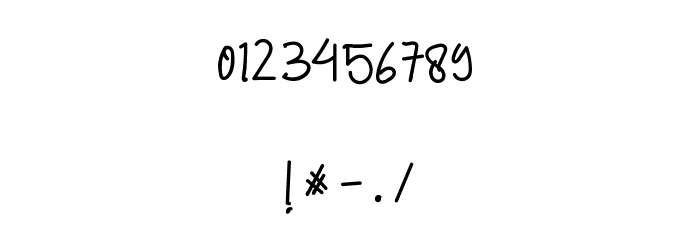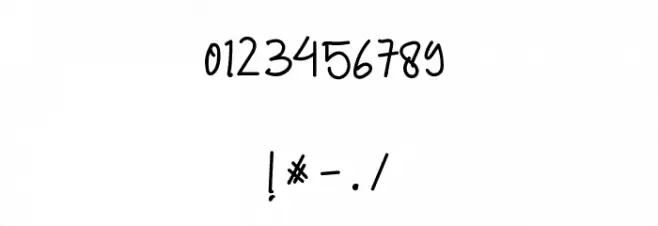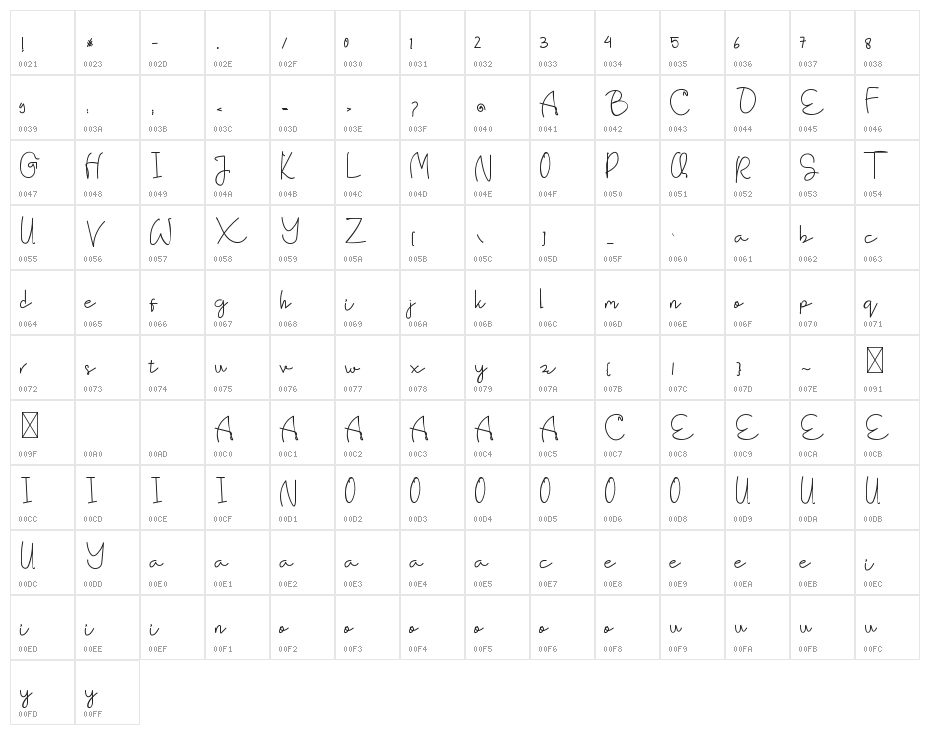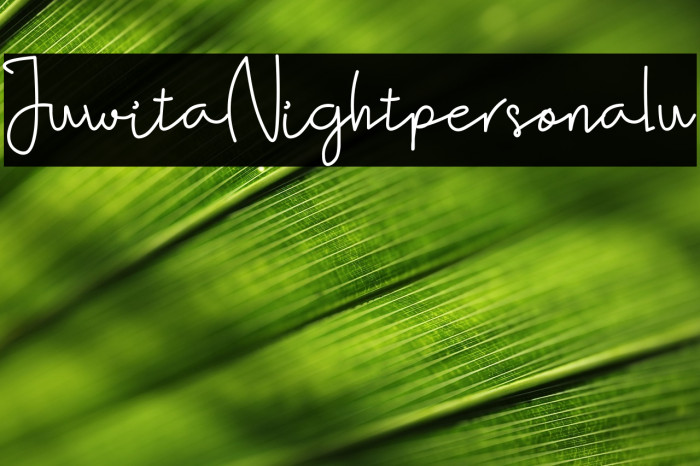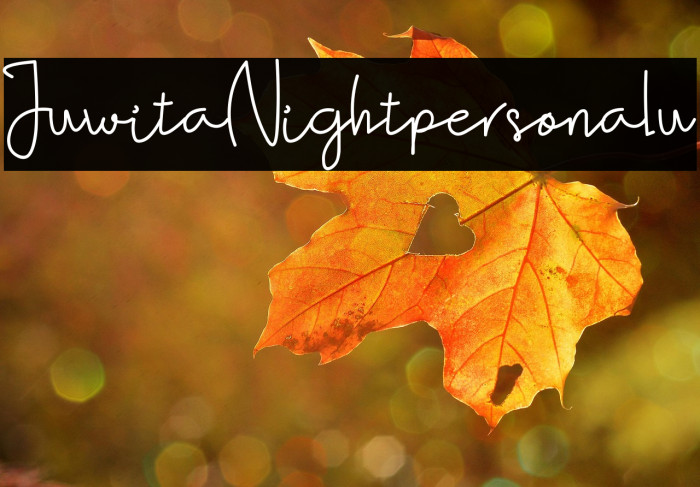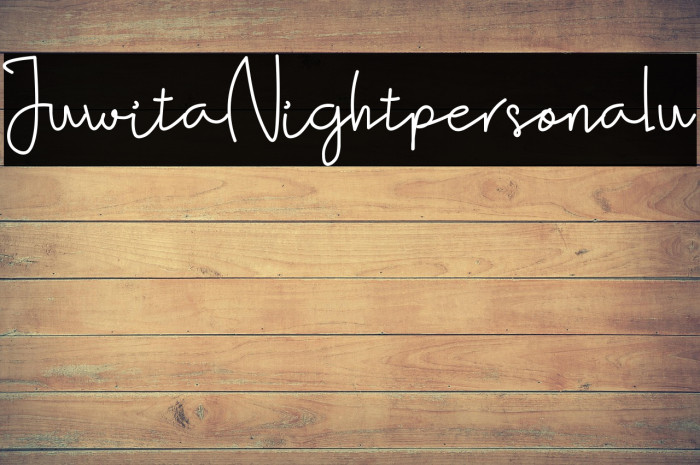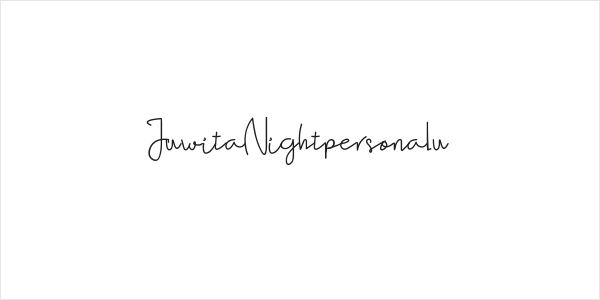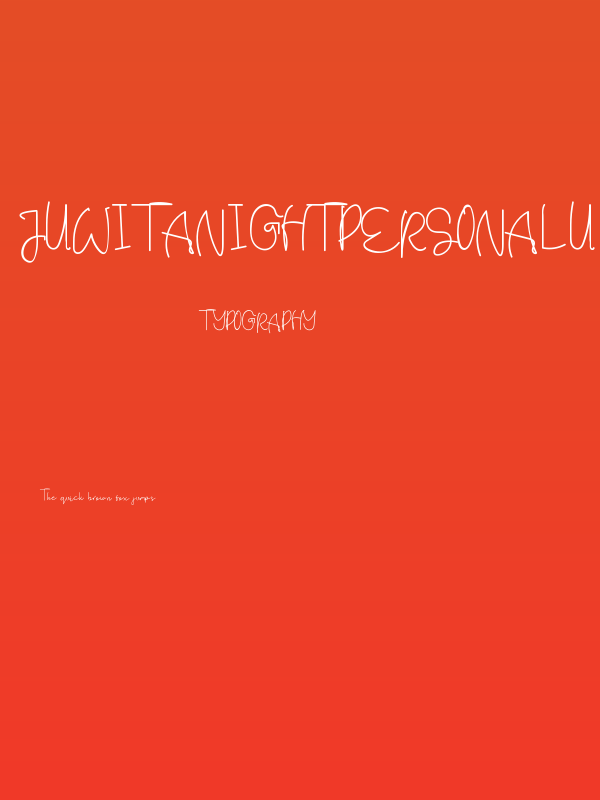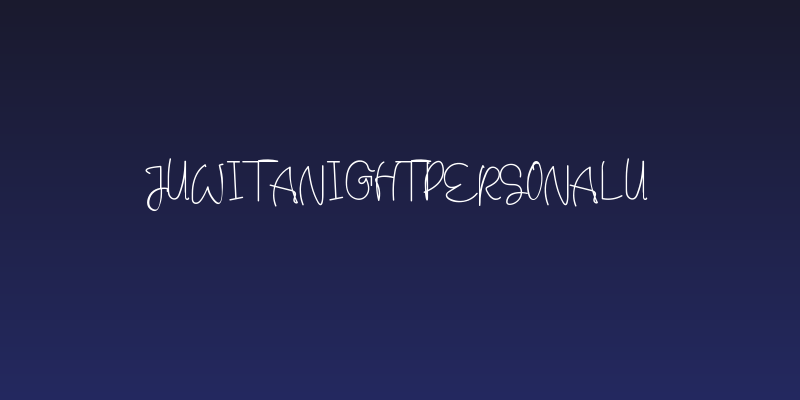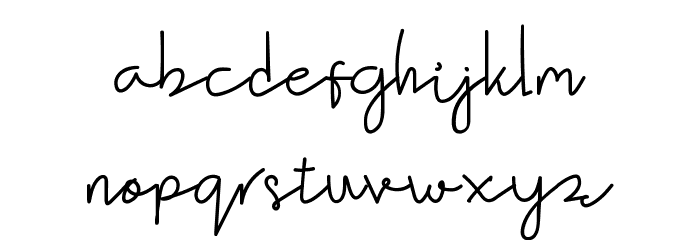
JuwitaNightpersonalu Font
JuwitaNightpersonalu Description
This font features a playful and whimsical handwritten style, characterized by its fluid and organic strokes. The uppercase letters are tall and slightly irregular, giving a casual and friendly appearance. The lowercase letters maintain a consistent flow, enhancing readability while retaining a personal touch. Numbers and special characters are crafted with the same playful spirit, making them suitable for creative projects. The overall design is light and airy, with a sense of movement and spontaneity, making it ideal for informal and artistic applications.